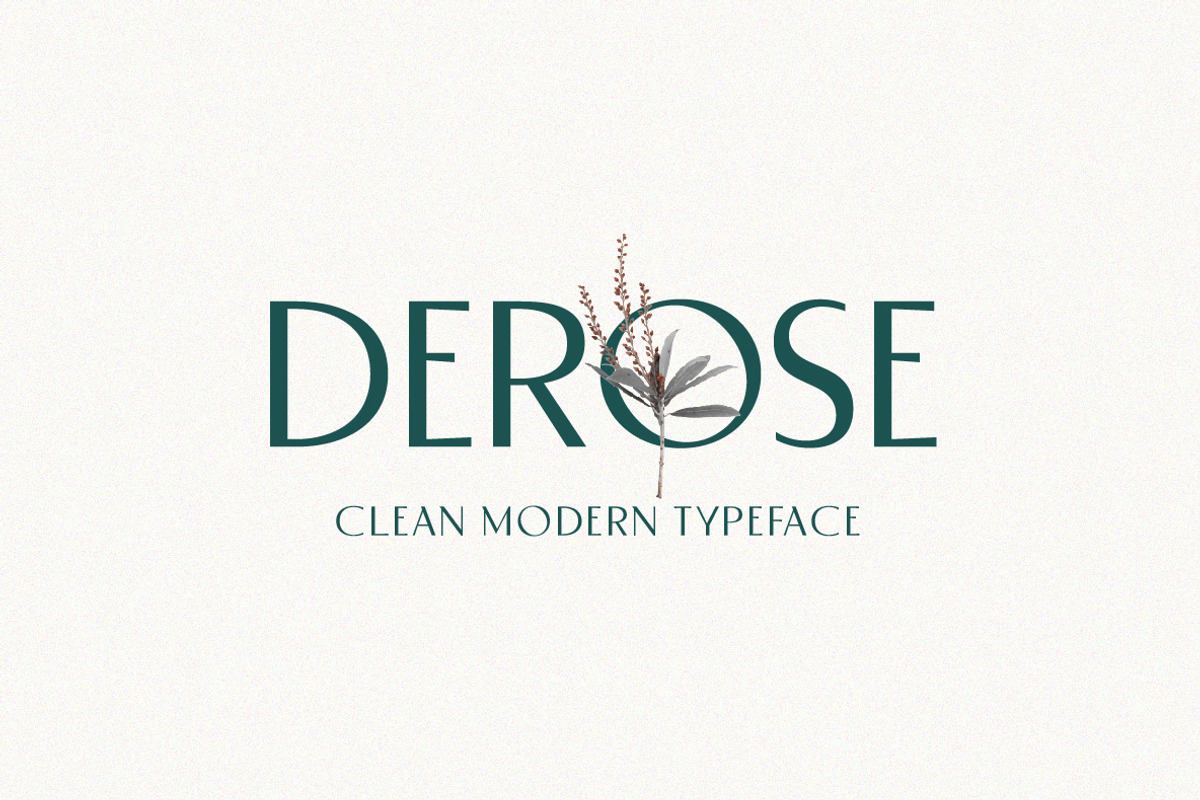
Minimal, elegant, and highly versatile, Derose Clean Modern Font Free Download is a refined sans-serif typeface designed for contemporary branding, editorial layouts, product packaging, and digital content. Its clean lines and soft curves make it ideal for projects that demand sophistication and clarity.
Derose brings a touch of luxury with its well-balanced letterforms and modern aesthetic. Whether you're designing a fashion label, a portfolio, or a high-end website, this font adds a sleek, professional feel without overpowering your visuals.